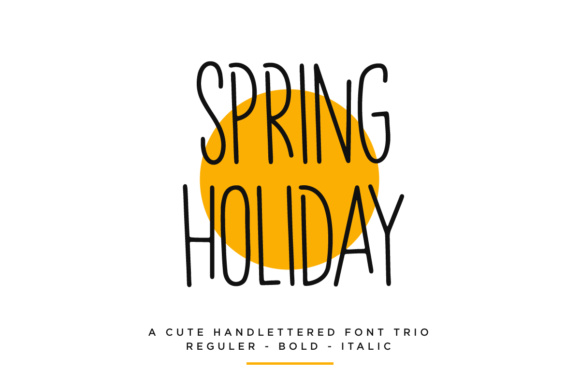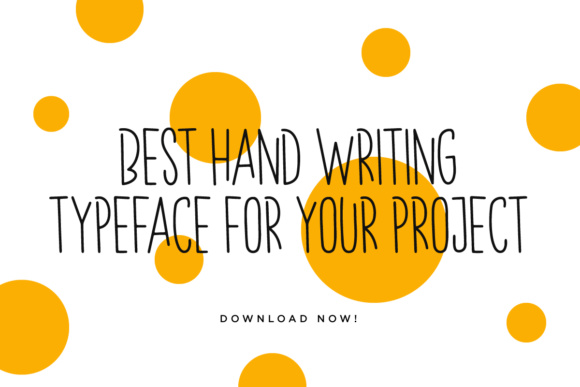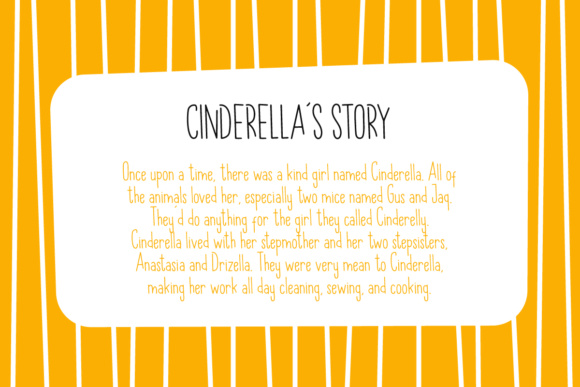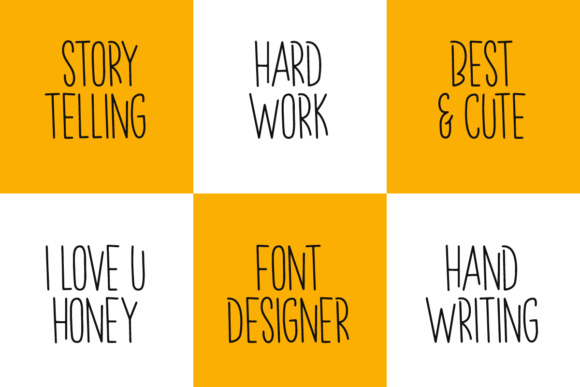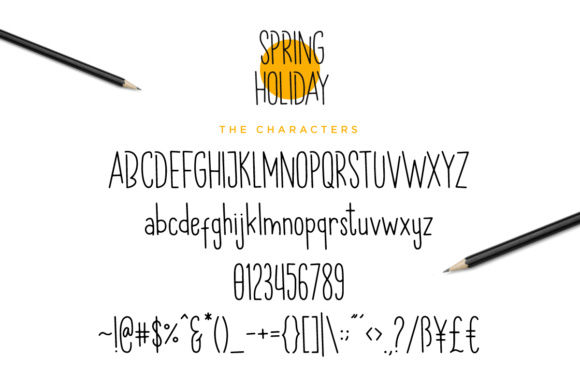
Spring Holiday Font
About Spring Holiday Font
The Spring Holiday is a cute hand drawn font. It comes in a regular, italic, and bold version. It’s perfect when used for cosmetic and feminine contexts, but is also masculine enough to be used for strong logos and branding designs.